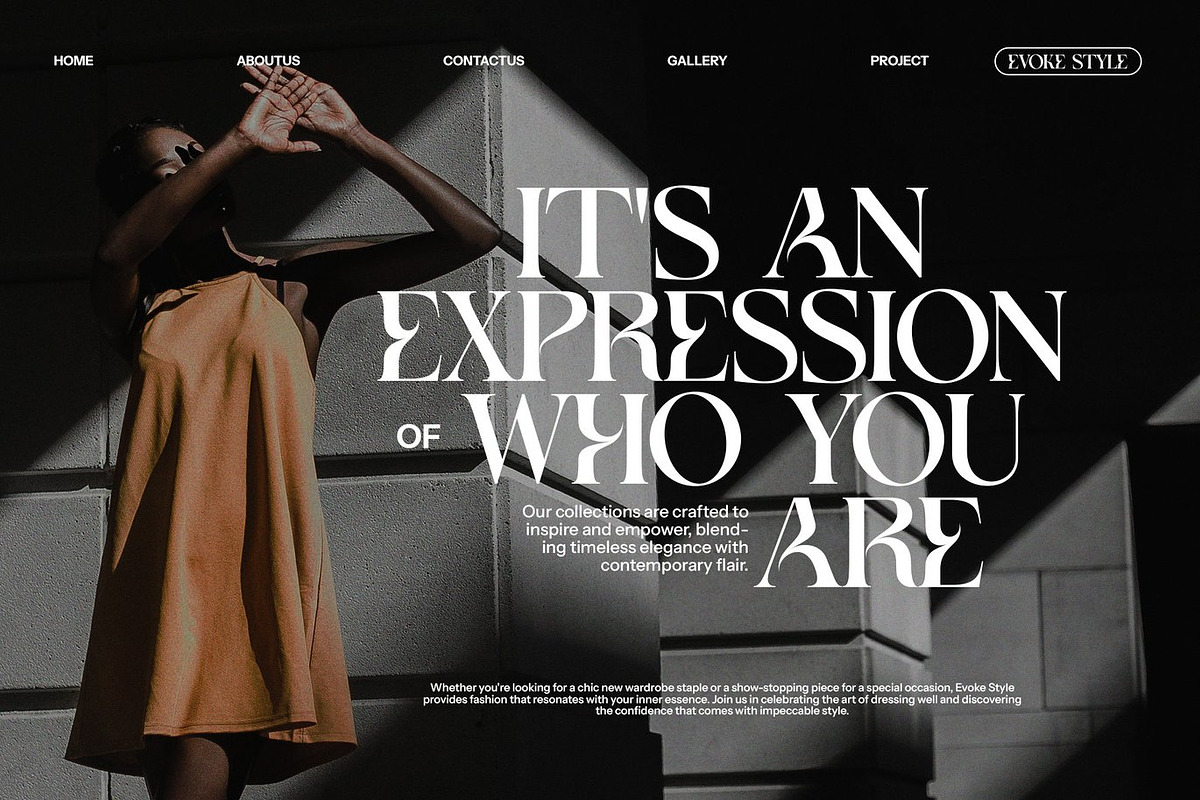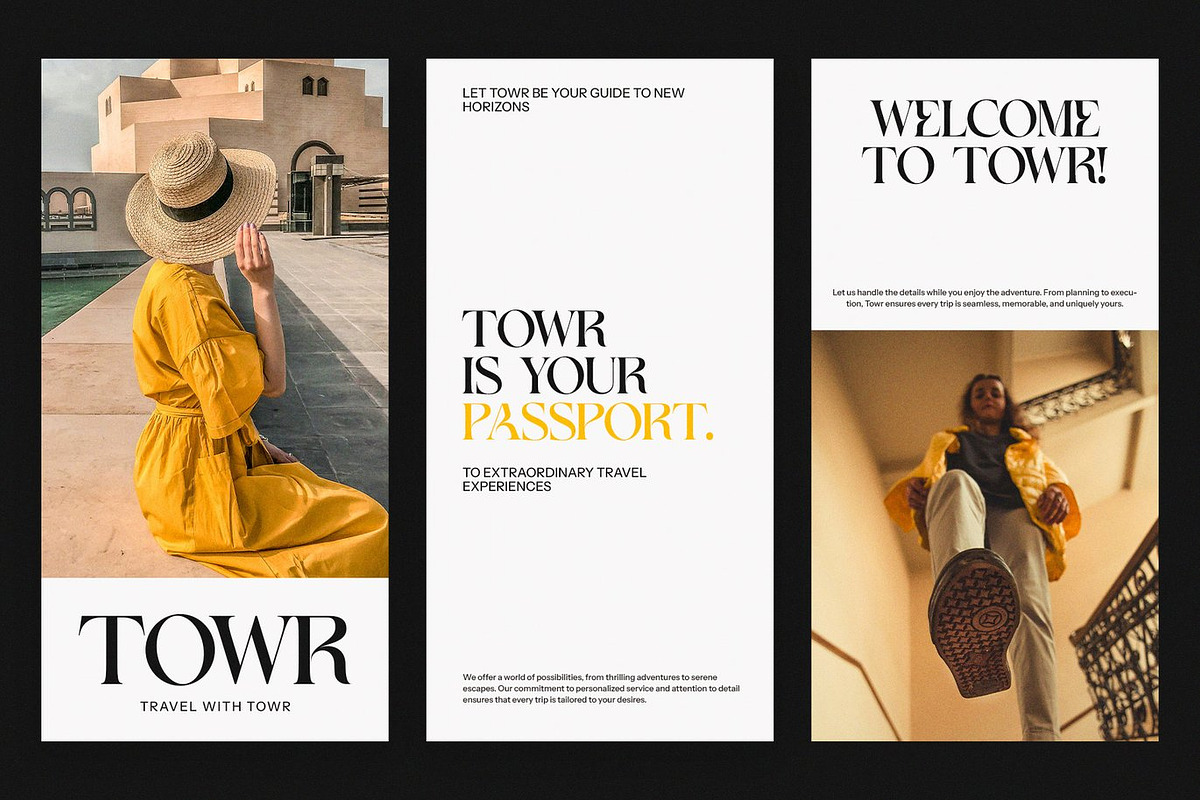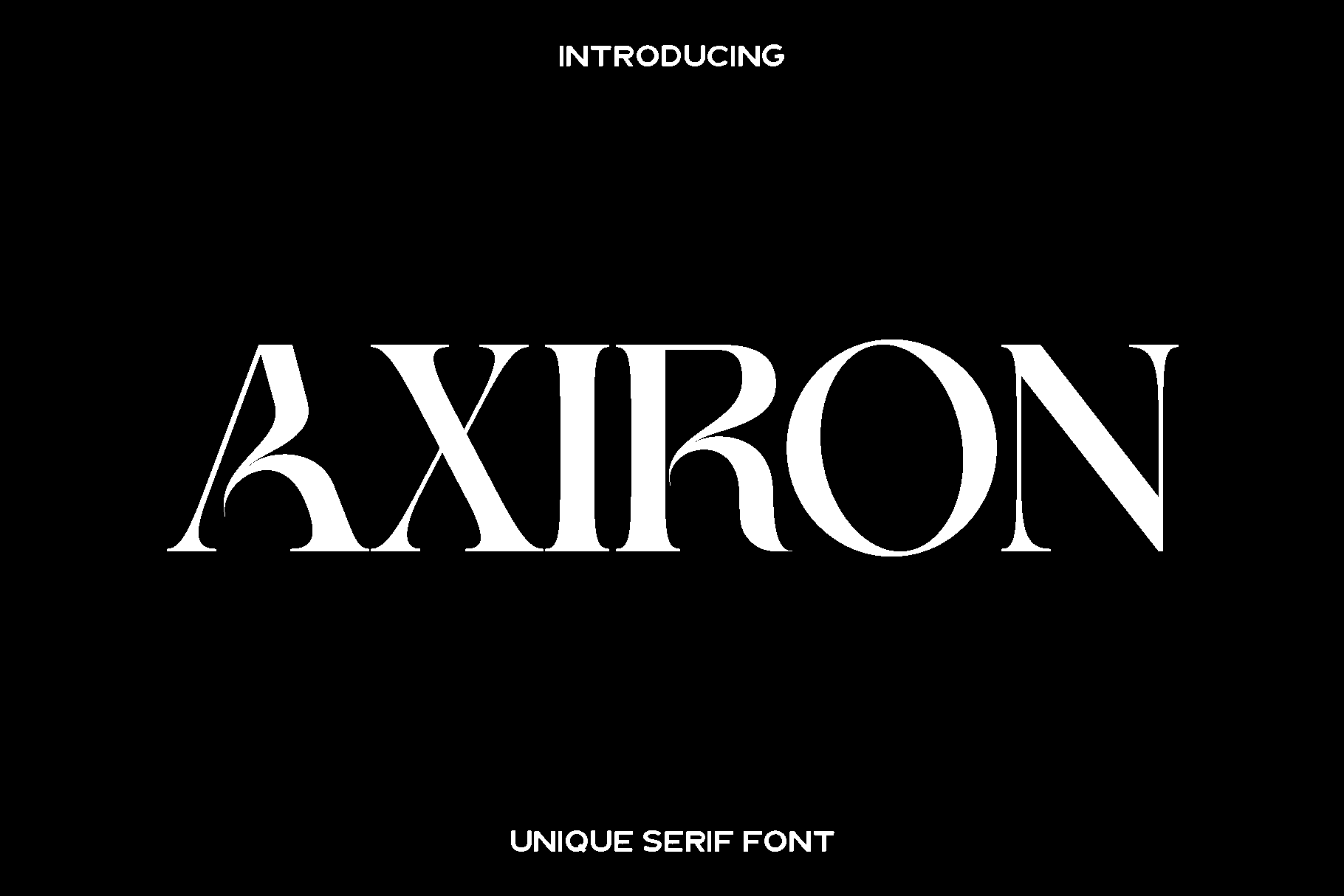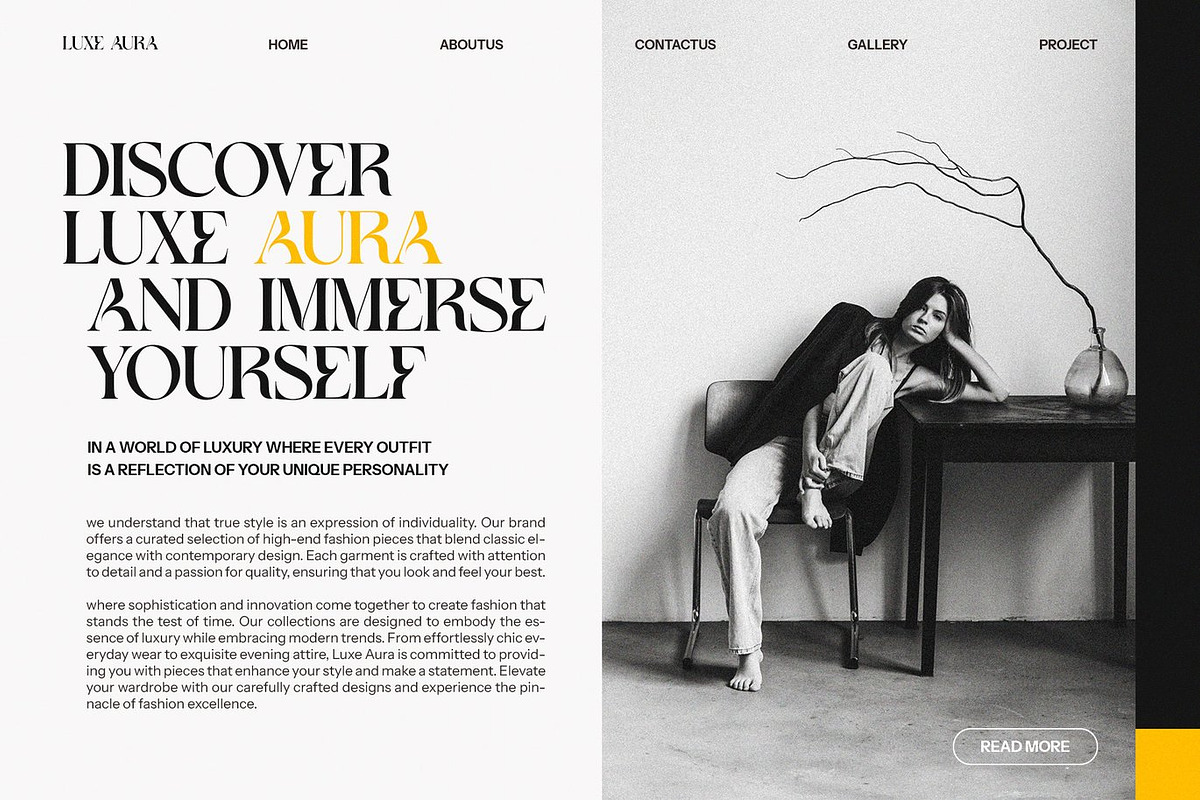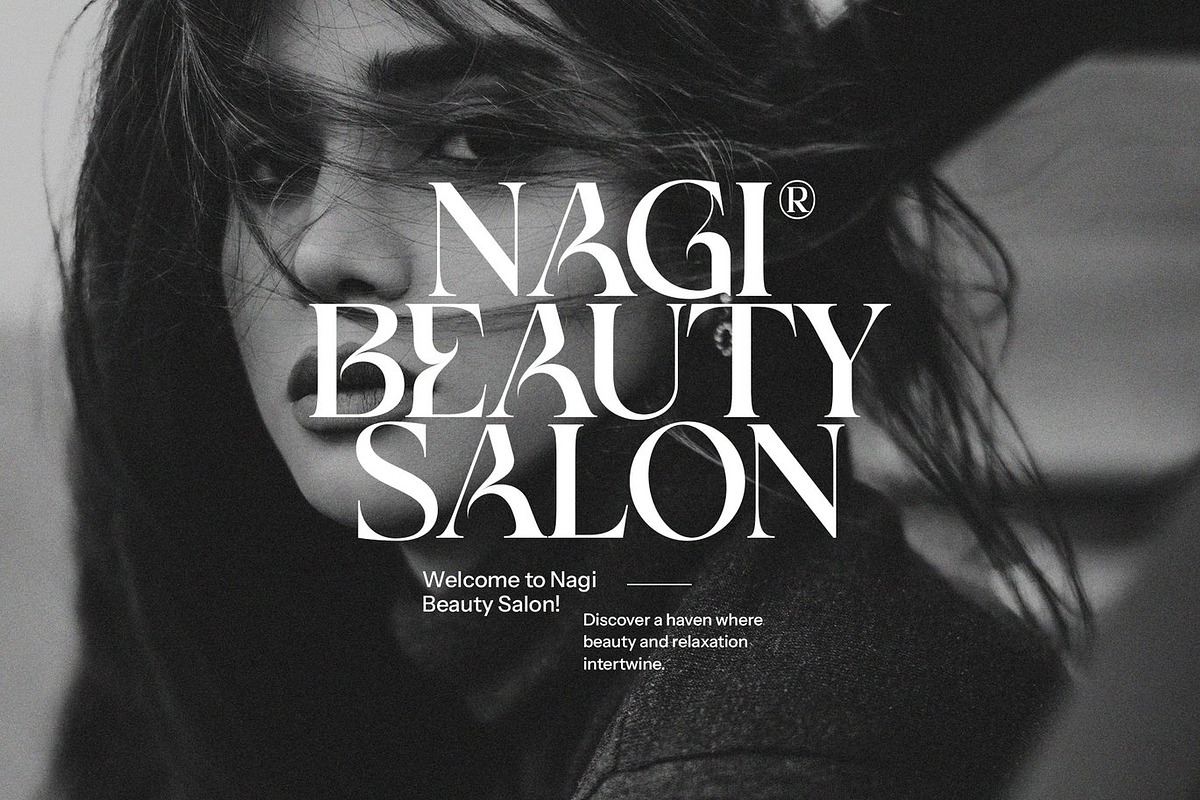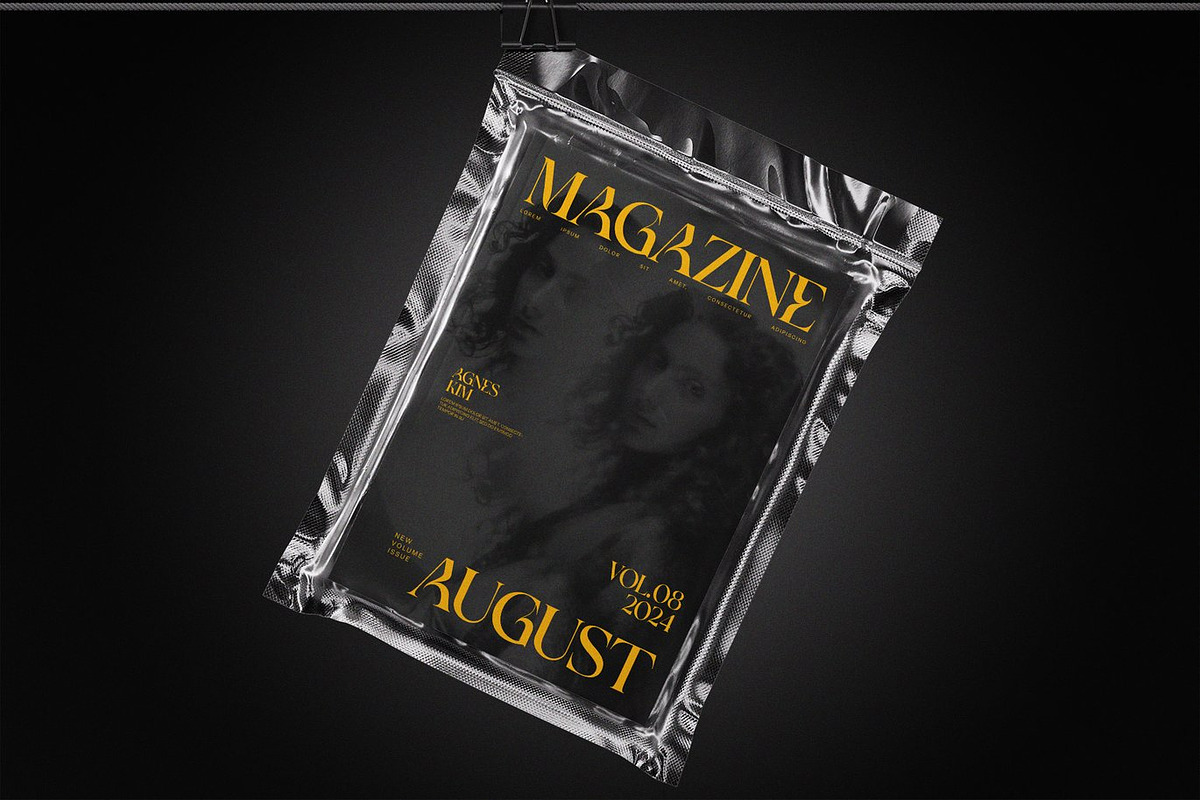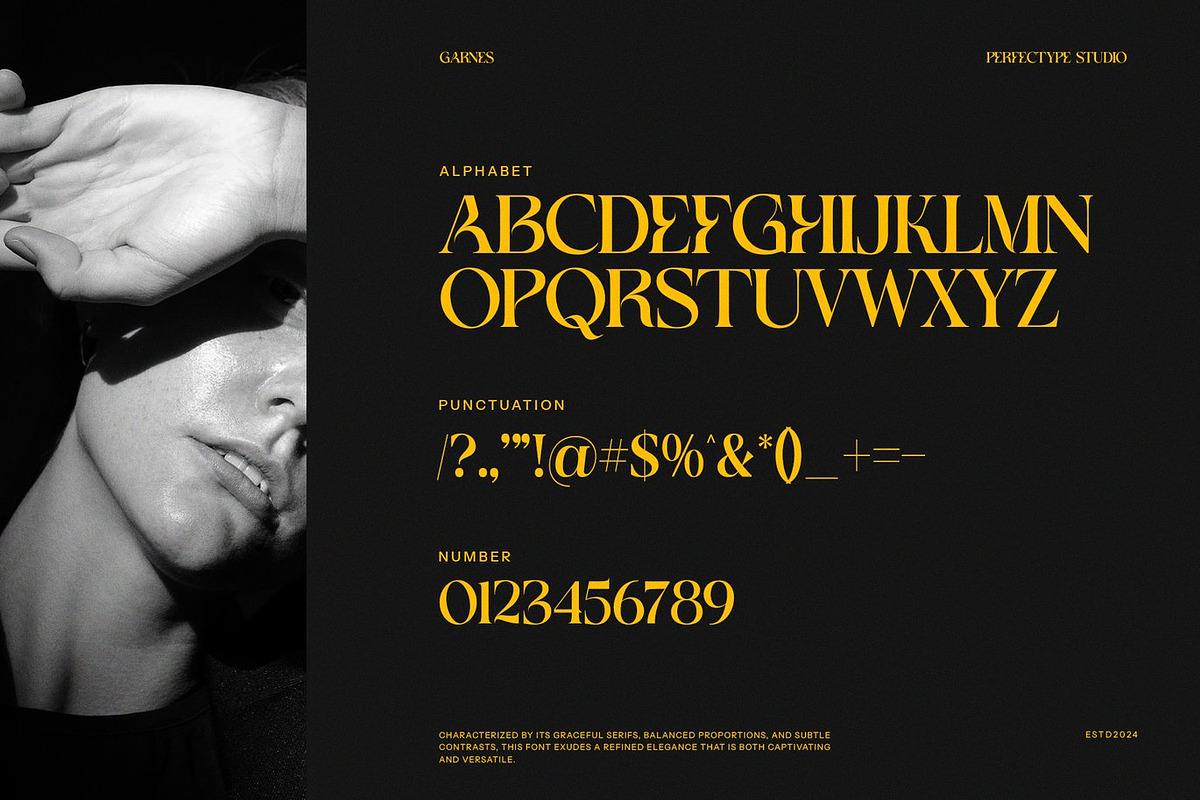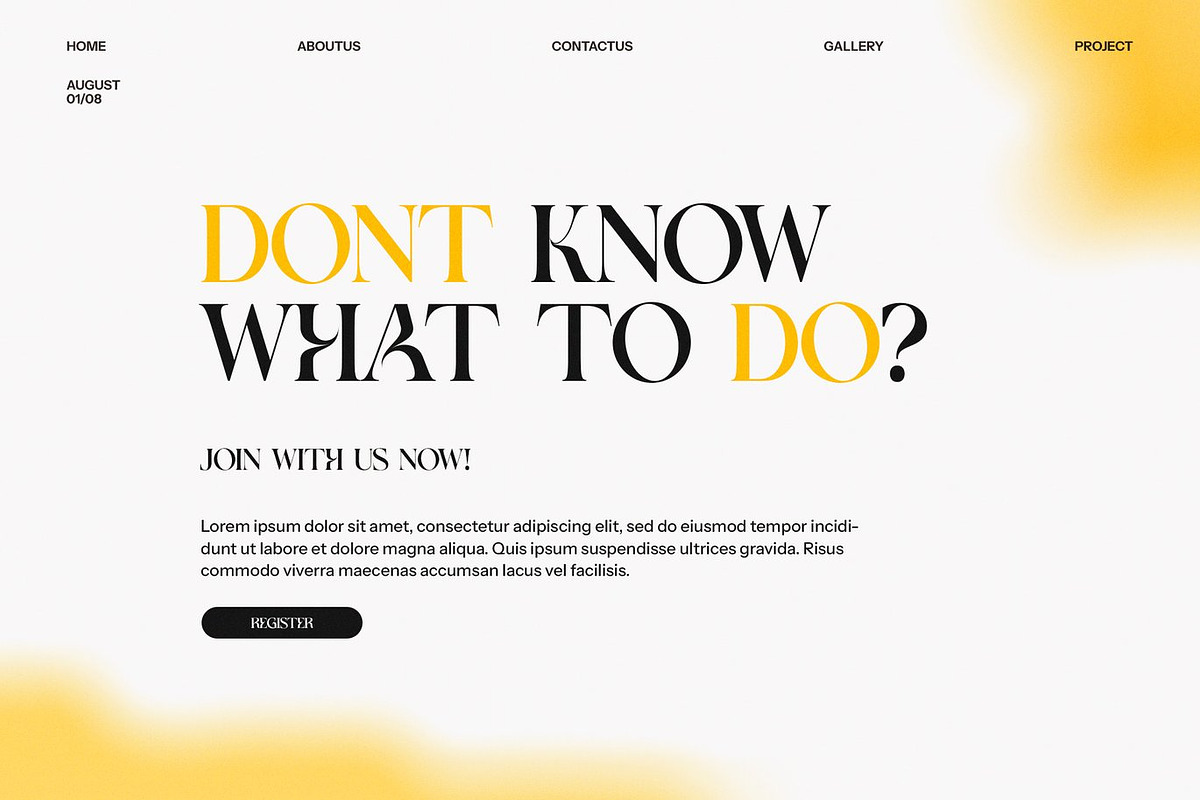
Axiron - Classy Serif Font
Axiron is a refined serif font created for designers who value luxury, elegance, and timeless beauty. Crafted with smooth curves and graceful details, Axiron brings a sophisticated presence to every project. Its classic yet modern style delivers a high end look that elevates branding, editorial layouts, and visual identities with effortless charm. Each letterform is designed for clarity and impact, ensuring your typography remains both stylish and readable.
This font shines in premium branding, logo design, product packaging, wedding materials, advertisements, and social media content. Whether you are creating a luxurious brand identity, designing stylish invitations, or crafting elegant labels, Axiron enhances your work with its polished aesthetic. It adapts beautifully to both subtle, minimal layouts and bold, expressive compositions, making it a versatile tool for any designer.
Axiron feels classy, confident, and creative. Its high legibility and refined character shapes make it ideal for both display use and fine text. If you want a font that brings sophistication and consistency to your designs, Axiron is a standout choice for professional and artistic projects alike.
Axiron Serif Font Features:
• Standard characters
• Numbers and punctuation
• Accented characters for Western Europe